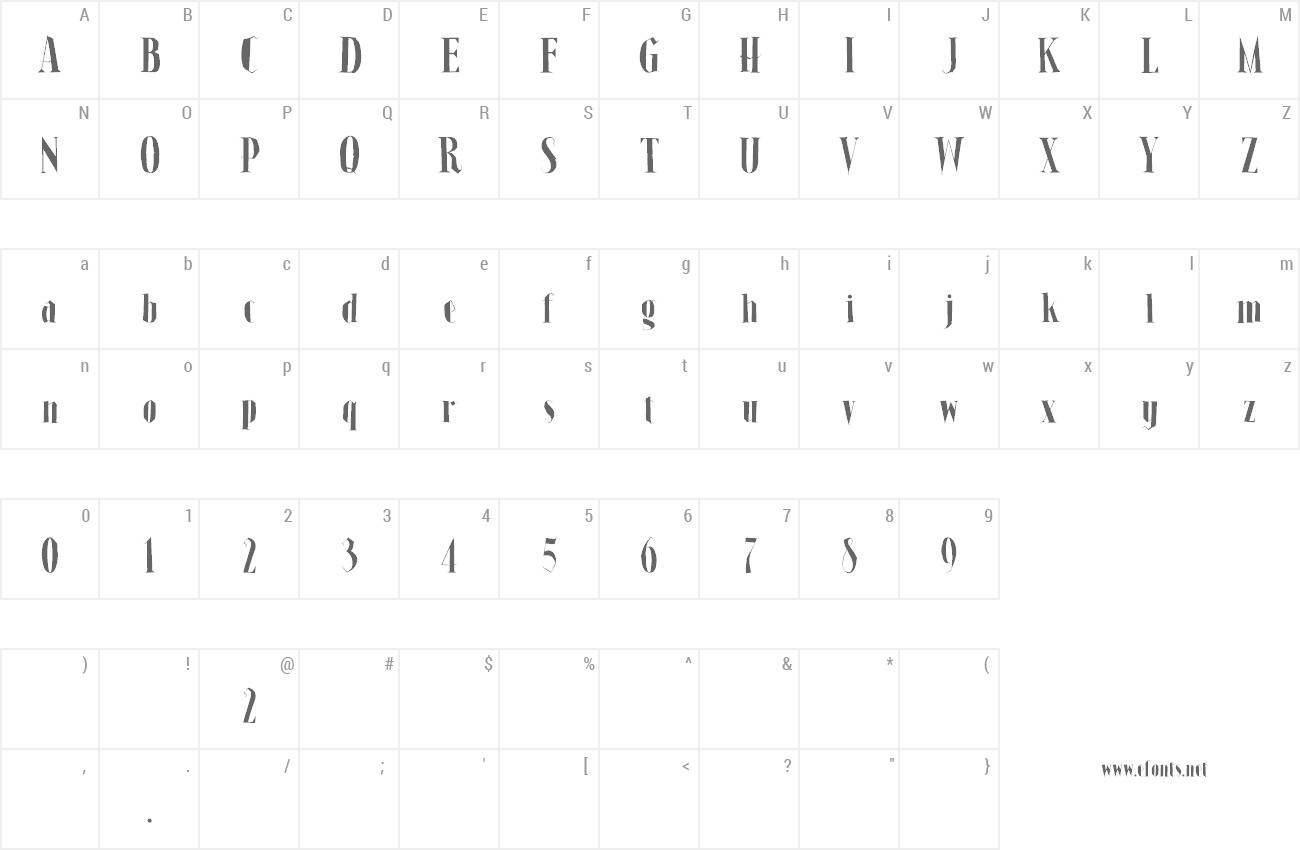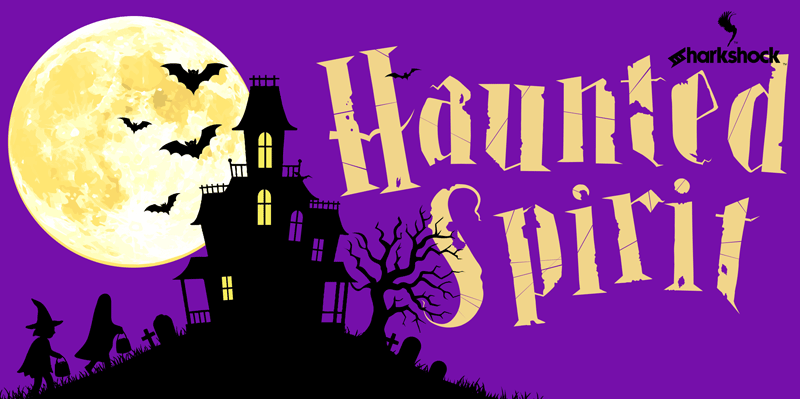
Preview and download Haunted Spirit Font. Created by Sharkshock in Holiday Halloween styles with Demo license.
OTF/TTF: Haunted Spirit (Regular, Lite Distress, Eroded) Sharkshock 2025. All rights reserved Designed by Dennis Ludlow 07/03/2025 dennis@sharkshock.net Haunted Spirit is a Halloween themed display font that will add some spookiness to your project. Asymmetrical strokes and jagged lines give this family a whimsical character. Several of the serifs, cross bars, ascenders, and others terminate in a root-like manner. Included are 3 different versions which allow you to control the level of distress along with 2 sets of alternates for Basic Latin. OTF programming allows you to cycle through multiple instances of a letter within a single word if your application supports it. Use Haunted Spirit for a party invite, movie poster, or a witch themed book. Haunted Spirit is equipped with Basic and extended Latin, punctuation, kerning, and alternates. Please check the glyph maps for all supported characters. The demo contains basic characters only. The full version is available by either purchasing a commercial license or a one-time $35 payment for personal use only. Email us or visit www.sharkshock.net/license for more information on licensing. Unauthorized usage of our intellectual property is strictly prohibited and may result in legal measures. Tags: high contrast, Halloween, spooky, creepy, children, kids, holiday, magic, whimsical, witch, wizard, witchcraft, sorcery, scary, display, serif, root, lightning, dark, playful |